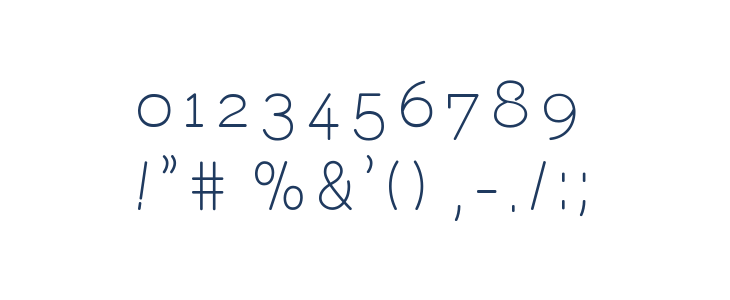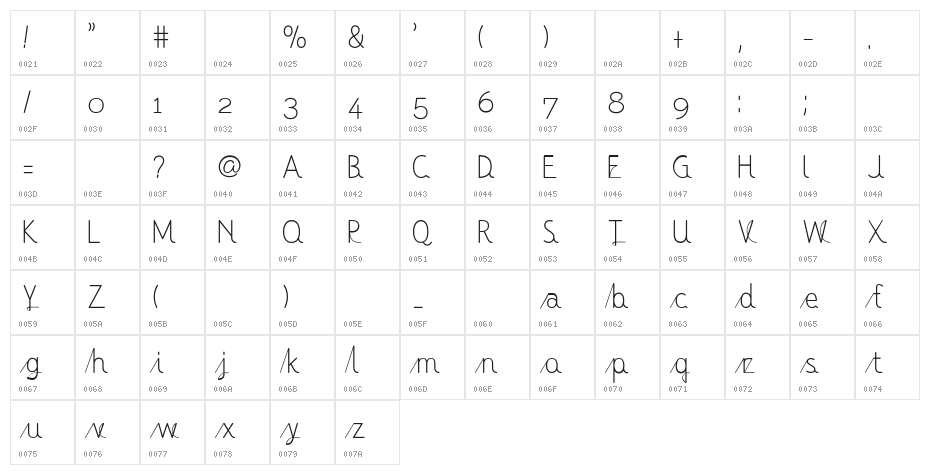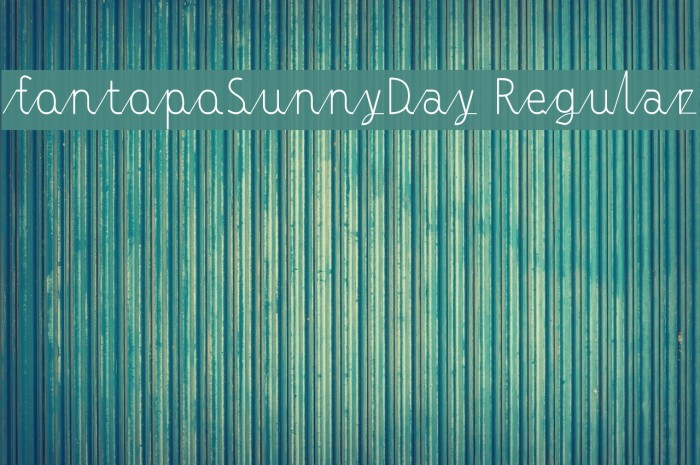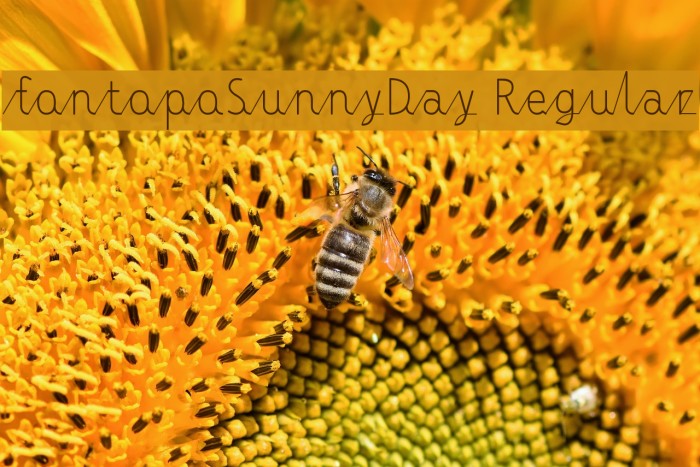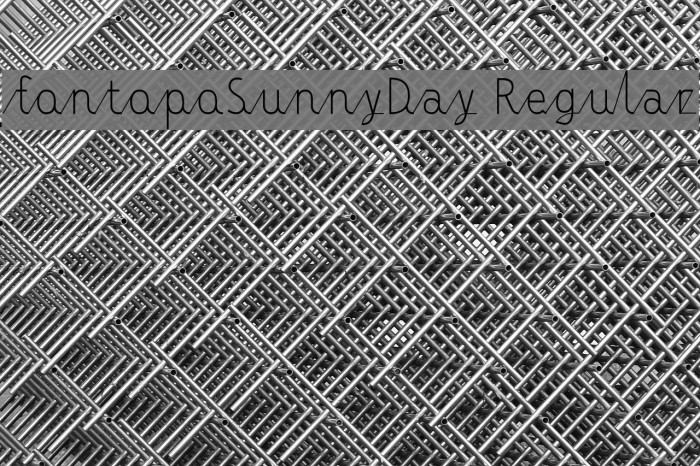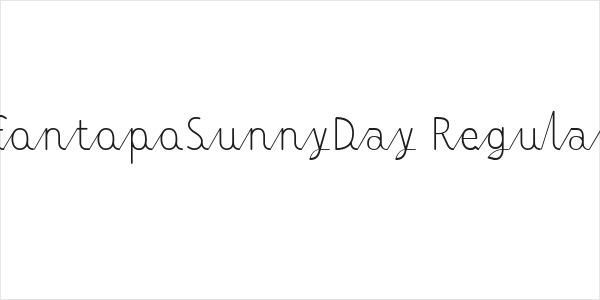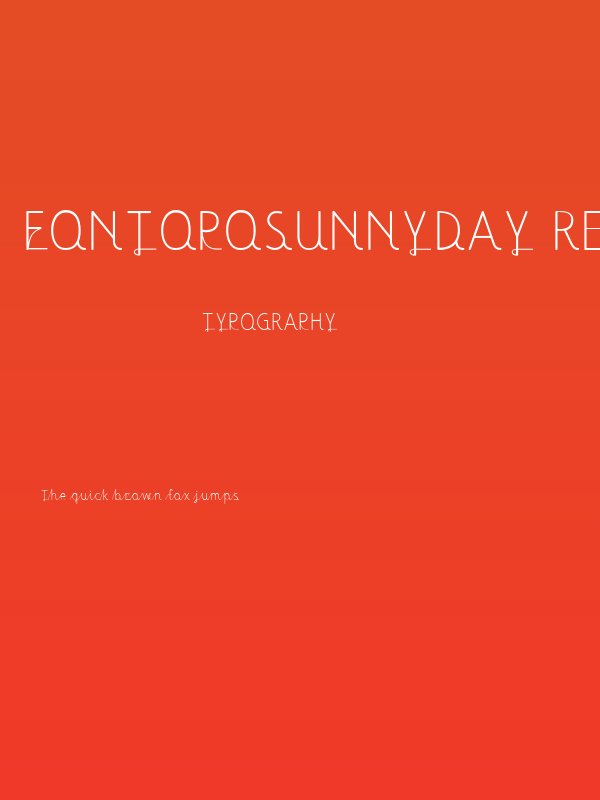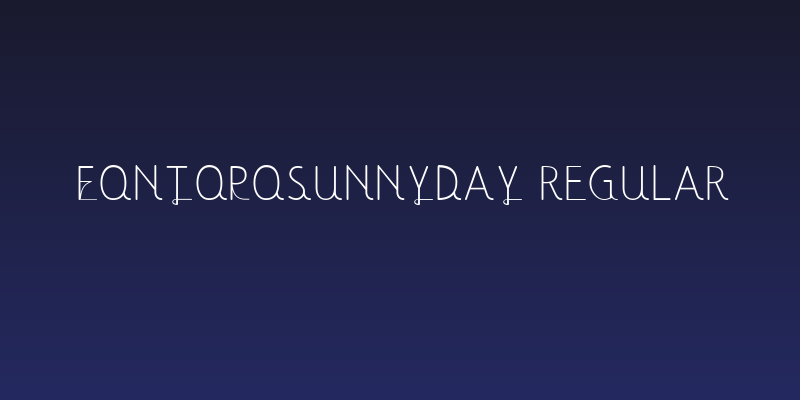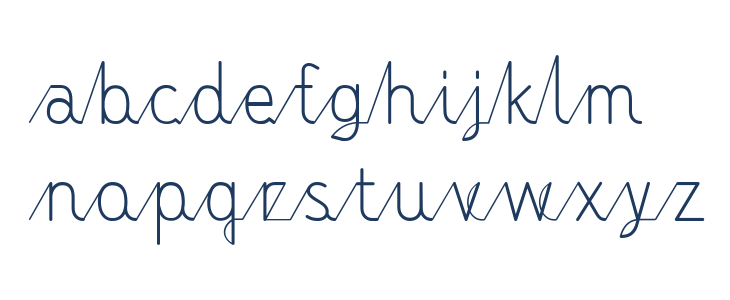
fontopoSunnyDay Regular Font
fontopoSunnyDay Regular Description
This font features a playful and whimsical design with a handwritten style. The characters are thin and slightly slanted, giving a casual and friendly appearance. The uppercase letters are tall and narrow, while the lowercase letters maintain a consistent flow with gentle curves. The numerals and special characters are designed to match the overall aesthetic, providing a cohesive look. The font's light strokes and open forms make it suitable for informal and creative projects.
| Proposed Projects | Ideal for greeting cards, children's books, playful branding, and creative invitations. |